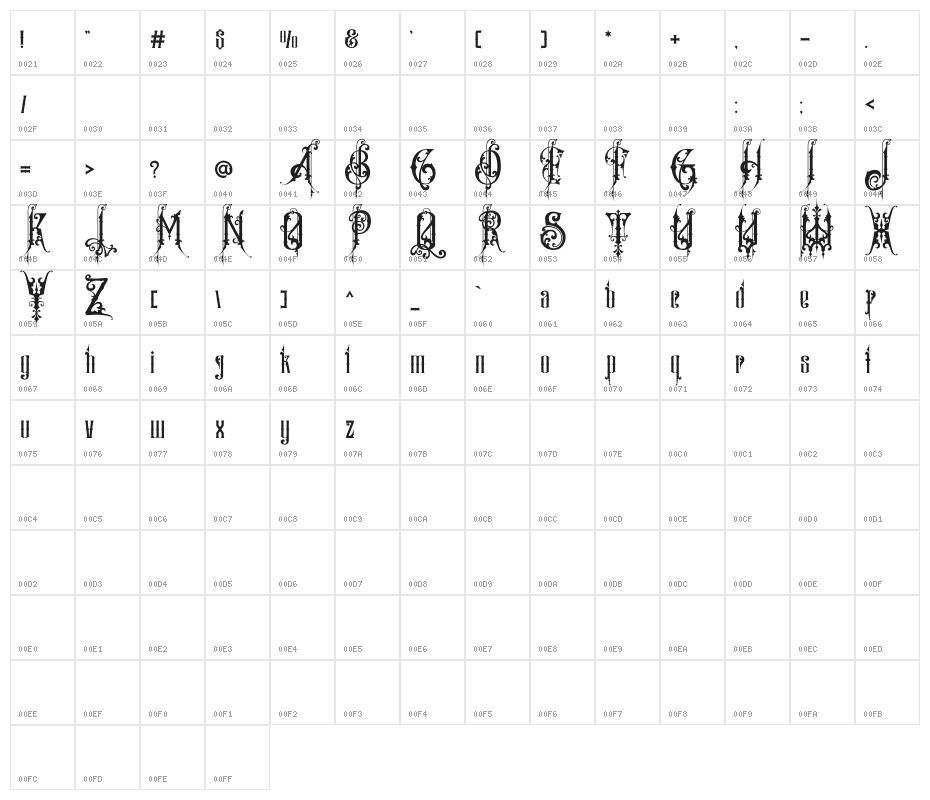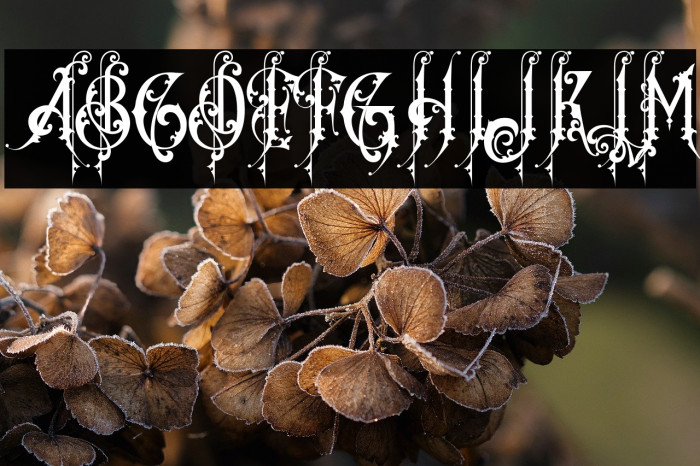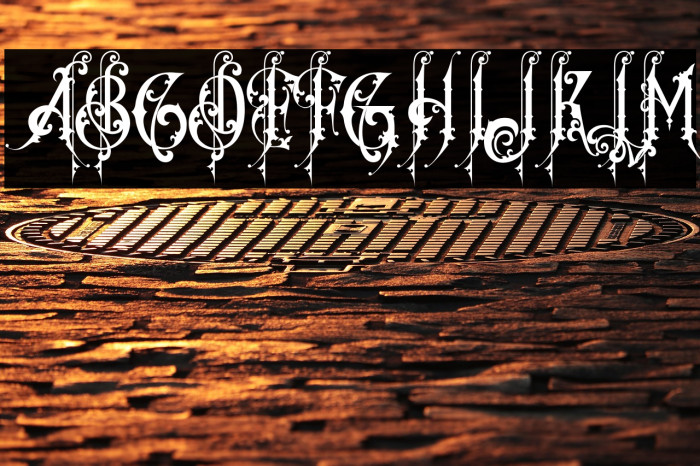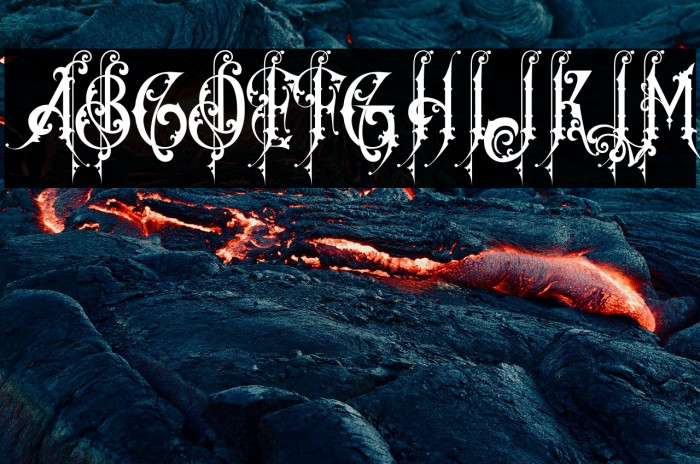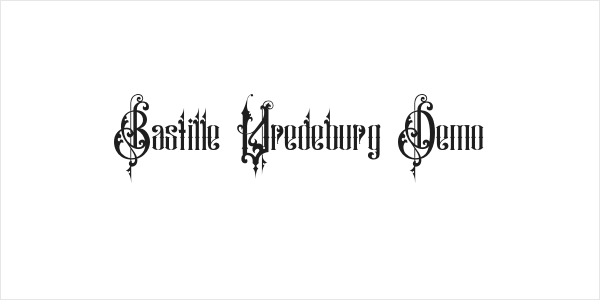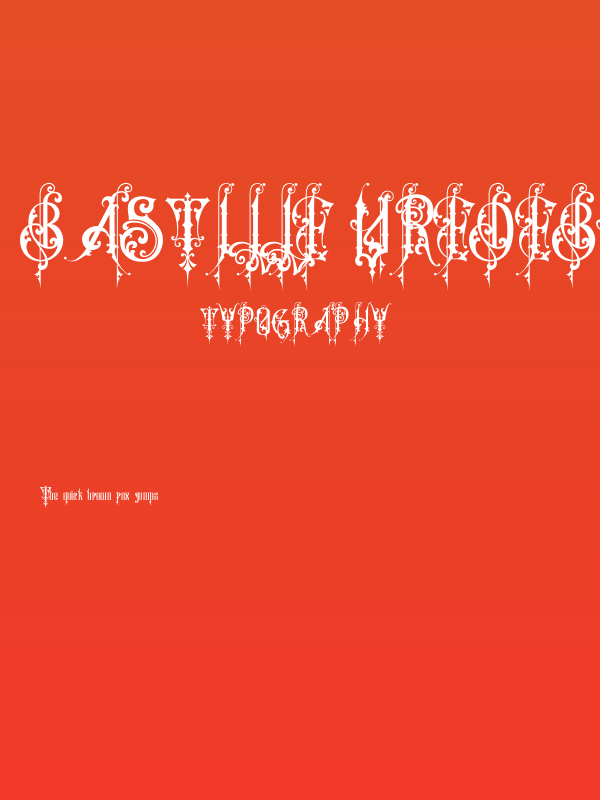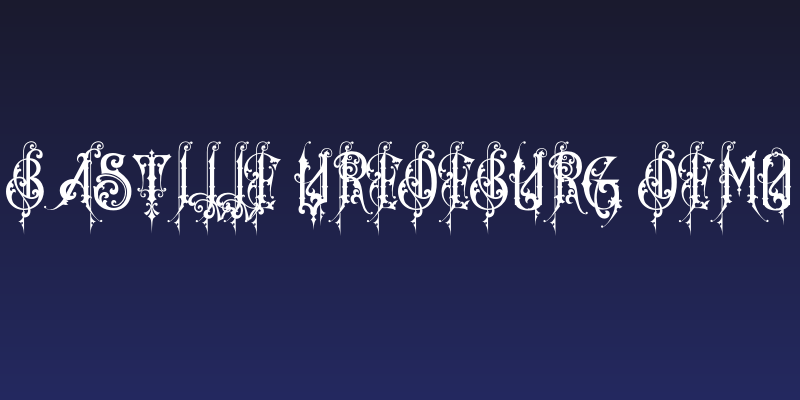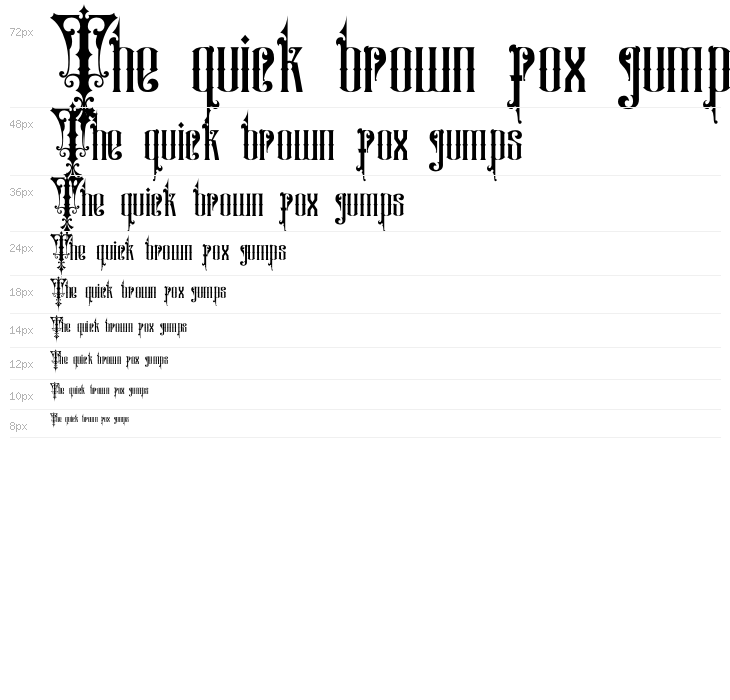
Bastille Vredeburg Demo Font
Bastille Vredeburg Demo Description
This font exhibits a highly decorative and intricate style, reminiscent of Gothic or medieval script. The uppercase letters are adorned with elaborate flourishes and embellishments, creating a sense of grandeur and historical elegance. The lowercase letters maintain a more streamlined yet still ornate appearance, balancing readability with artistic flair. The numerals and special characters continue this theme, integrating seamlessly with the overall design. The font's unique character makes it suitable for projects that require a dramatic and eye-catching typeface.
| Proposed Projects | Ideal for historical-themed designs, event invitations, book covers, and branding that requires a dramatic and elegant touch. |